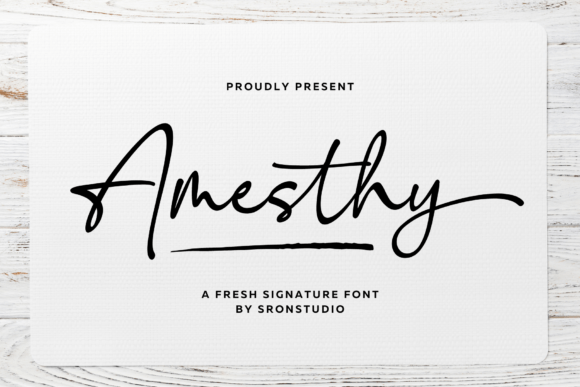
The Elusive Perfect Font: My Journey with Amesthy
I still remember the design project that led me to discover the Amesthy font. I was working on a logo for a high-end boutique client, and I needed a font that exuded elegance and sophistication. After hours of scouring font libraries and trying out different options, I stumbled upon Amesthy. Its flowing lines and stylish flourishes instantly caught my attention, and I knew I had found the perfect fit. In this article, I’ll share my experience with Amesthy, its features, and how to make the most of this beautiful font.
An Honest Review of Amesthy
- ✨ Elegant and sophisticated design that’s perfect for luxury brands and high-end designs
- ✅ PUA encoded, making it easy to access all the amazing glyphs and ligatures
- 💫 Flowing lines and stylish flourishes that add a personal touch to any design
- 🎨 Versatile and suitable for various design projects, including logos, invitations, and personal branding
While Amesthy is an excellent font, there are a few things to keep in mind:
- ⚠️ As a signature-style font, it may not be suitable for body text or large blocks of text
- 🤔 Some users may find the font a bit too ornate or over-the-top for certain design projects
The Story Behind Amesthy
Amesthy was designed with the intention of capturing the essence of a handwritten signature. The designer aimed to create a font that exudes elegance, sophistication, and refinement. The result is a beautiful, signature-style font that’s perfect for adding a personal touch to any design.
Q: What is PUA encoding, and how does it benefit Amesthy?
A: PUA (Private Use Area) encoding allows font designers to include additional glyphs and characters that aren’t part of the standard Unicode character set. In the case of Amesthy, PUA encoding makes it easy to access all the amazing glyphs and ligatures, giving you more creative freedom.
Q: Can I use Amesthy for body text or large blocks of text?
A: While Amesthy is a beautiful font, it’s primarily designed for display text, such as headings, titles, and short text. It’s not recommended for body text or large blocks of text, as it may be difficult to read.